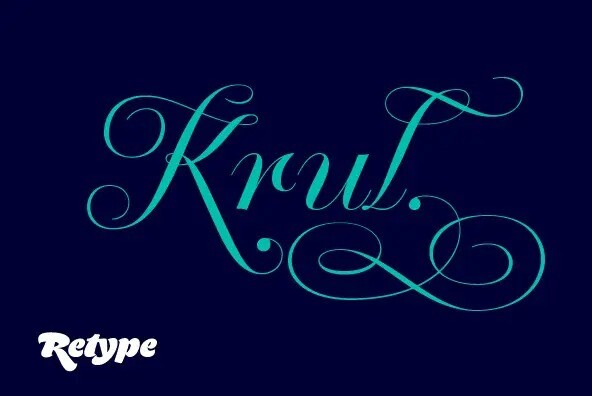
Krul Script Font
Designer: ReType Foundry
‘Krul’ is a typographic interpretation of the lettering style created by Dutch letter painter Jan Willem Joseph Visser at the end of the 1940s, which decorated the traditional brown bars of Amsterdam. In the beginning, these letters were strongly associated with the pubs connected to the Amstel brewery. In the 1970s and 1980s, Leo Beukeboom, another talented letter painter, continued and expanded this lettering tradition.
Conscious of the cultural issues that arise in reviving a unique style, and concerned about the speed with which the lettering style was disappearing, Ramiro Espinoza focused the project of designing ‘Krul’ on digitally recreating the calligraphic complexity of these beautiful letters. Created through several years of research, ‘Krul’ is not a direct digitization of the Amsterdamse Krulletter, but instead, an interpretation that incorporates numerous alternative characters absent in the original model, and improves upon details where necessary, resulting in an optimal performance on the printed page. The typeface is presented in Open Type format, with an abundance of intricate ligatures, fleurons, and swashes, which permit the creation of numerous calligraphic effects.
The very high contrast and rhythm of the strokes in this typeface make it especially suited for media applications conveying a sense of elegance and sophistication. Designers of feminine magazines, advertisements, and corporate identities within the fragrance and fashion industries will find in this typeface to be an extremely useful and appropriate resource.